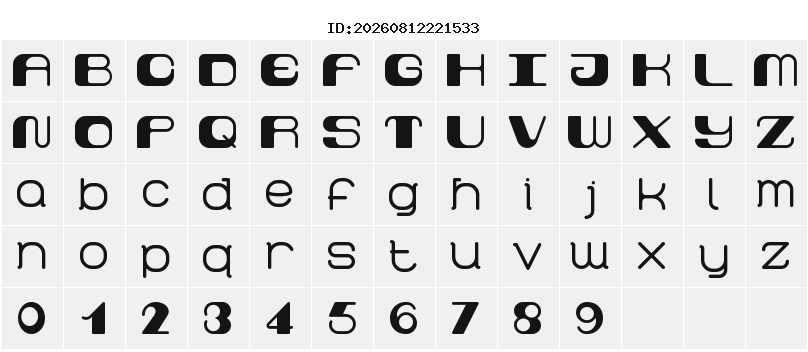
• Font Name: Retro60Prime
• Full Font Name: Retro60
About Retro60Prime.ttf
Retro60Prime.ttf is a modern, elegant sans-serif font designed for ultimate readability and visual harmony. Perfect for branding, headlines, web design, and print materials.